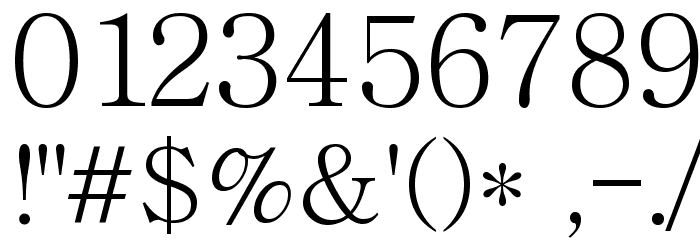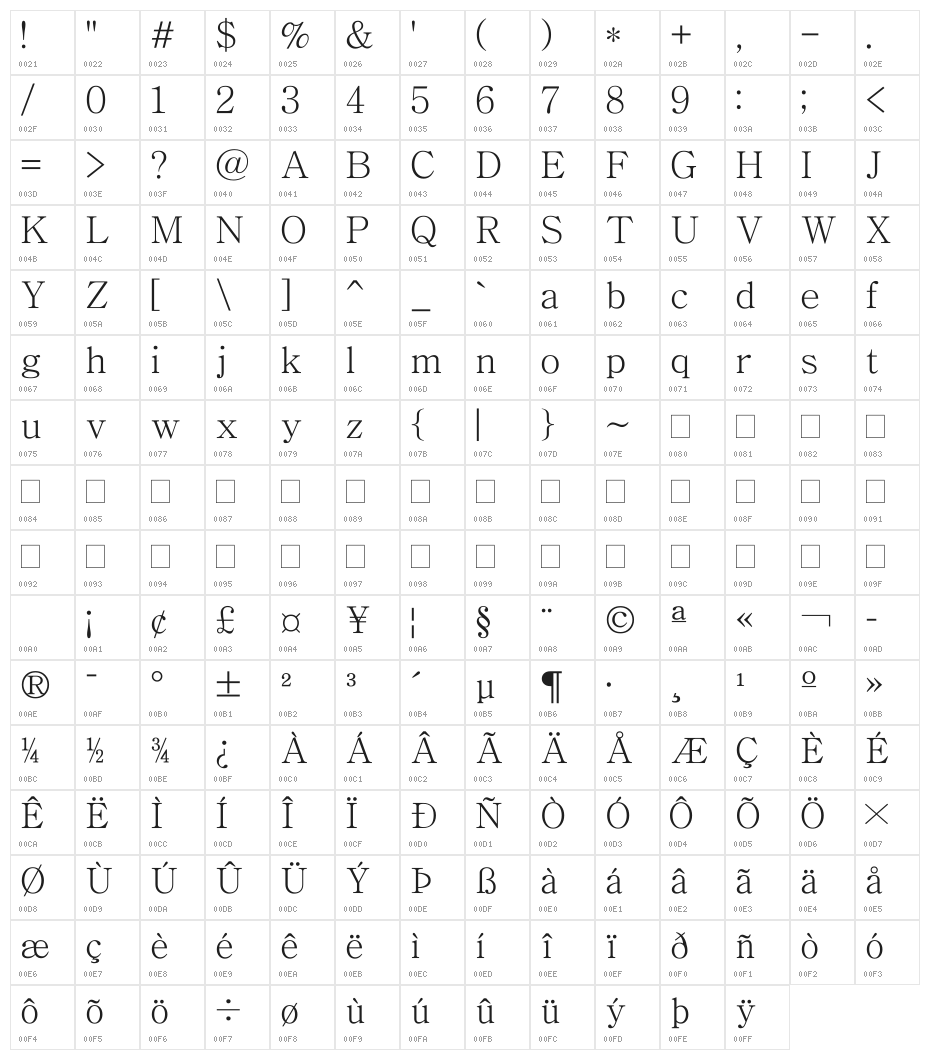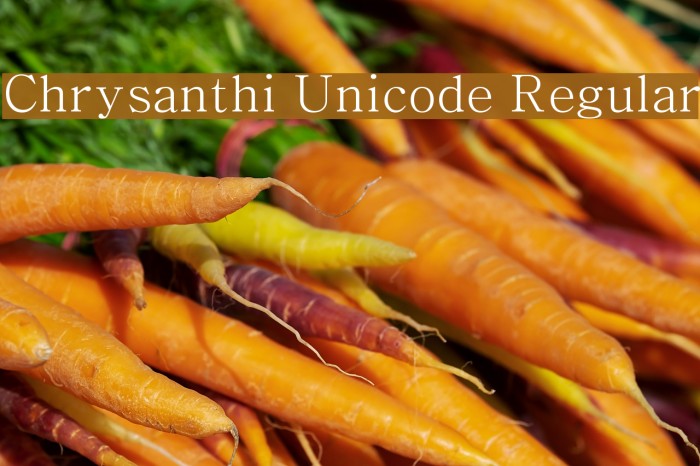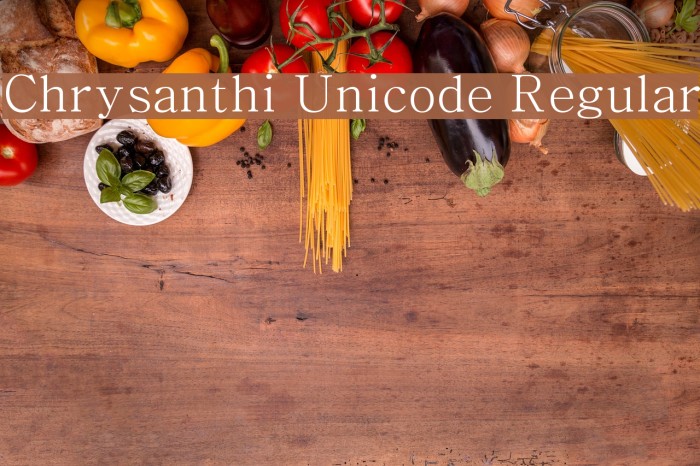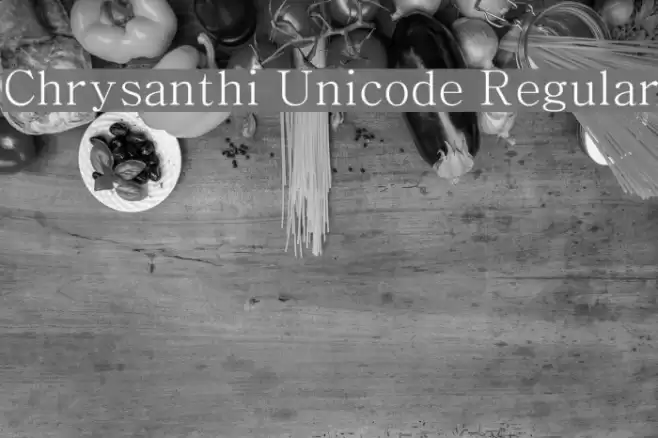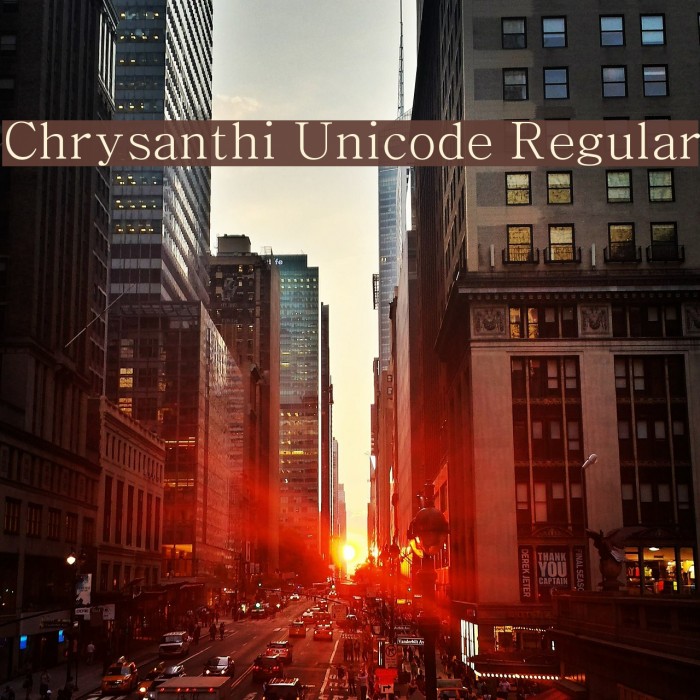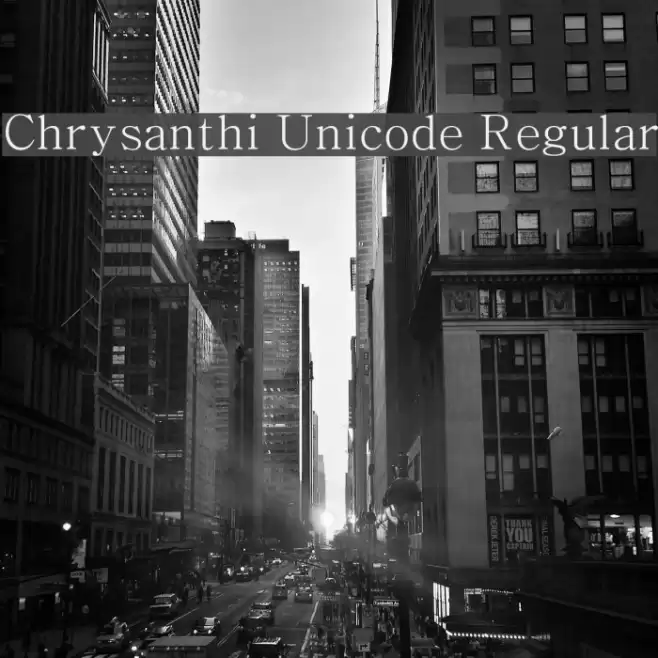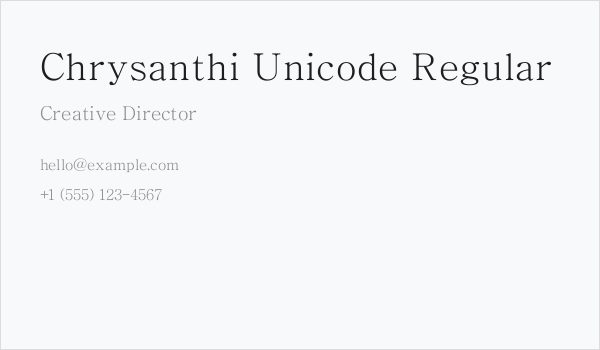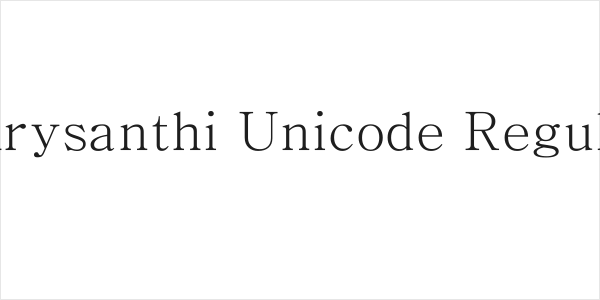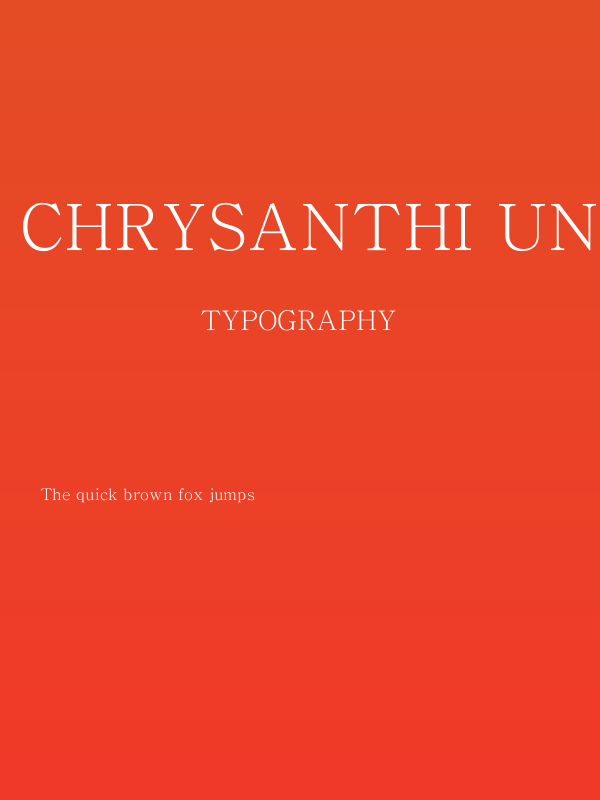
Chrysanthi Unicode Regular Font
Chrysanthi Unicode Regular Description
This typeface is characterized by its elegant and classic serif style, featuring thin and refined strokes that convey a sense of sophistication and tradition. The uppercase letters are tall and stately, while the lowercase letters maintain a consistent and harmonious flow. The numerals are clear and well-proportioned, making them easily legible. Special characters are designed with the same attention to detail, ensuring a cohesive look across all glyphs. The overall design is timeless, making it suitable for a variety of formal and professional applications.
| Proposed Projects | Ideal for book publishing, formal invitations, branding for luxury products, and editorial design. |